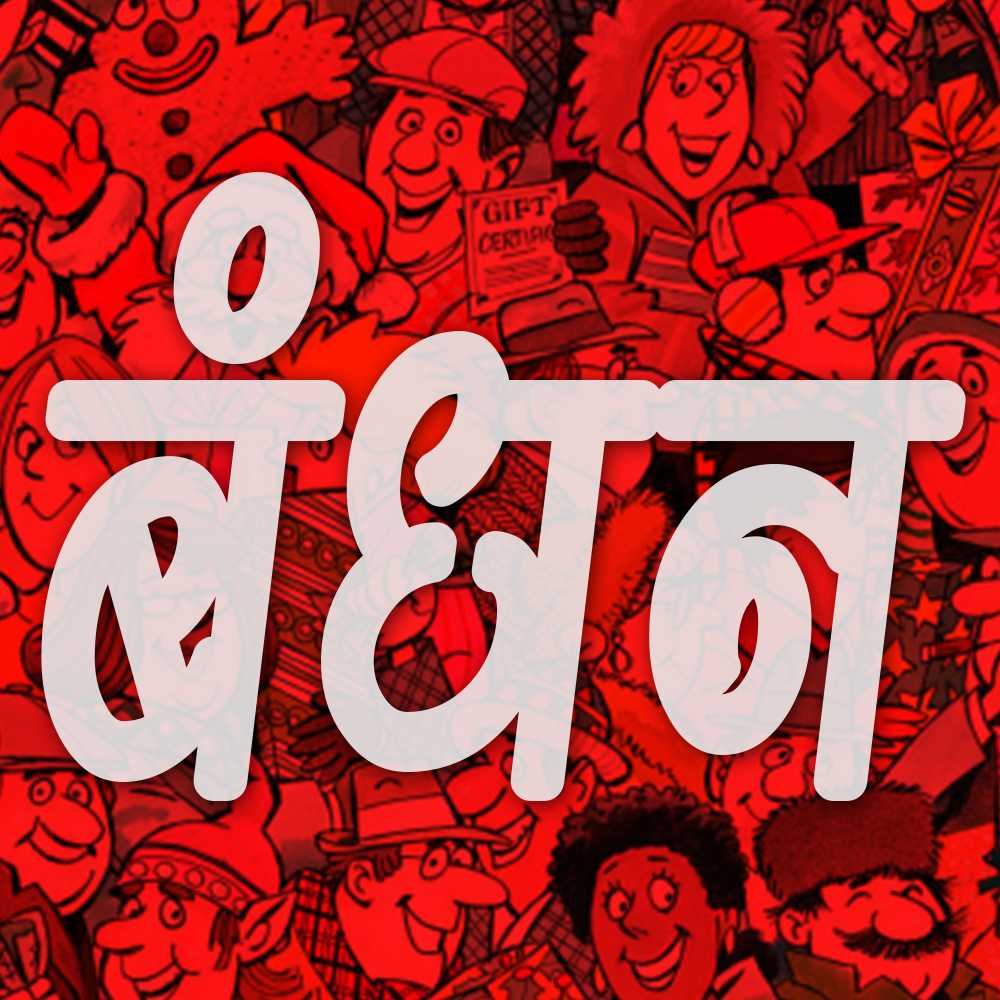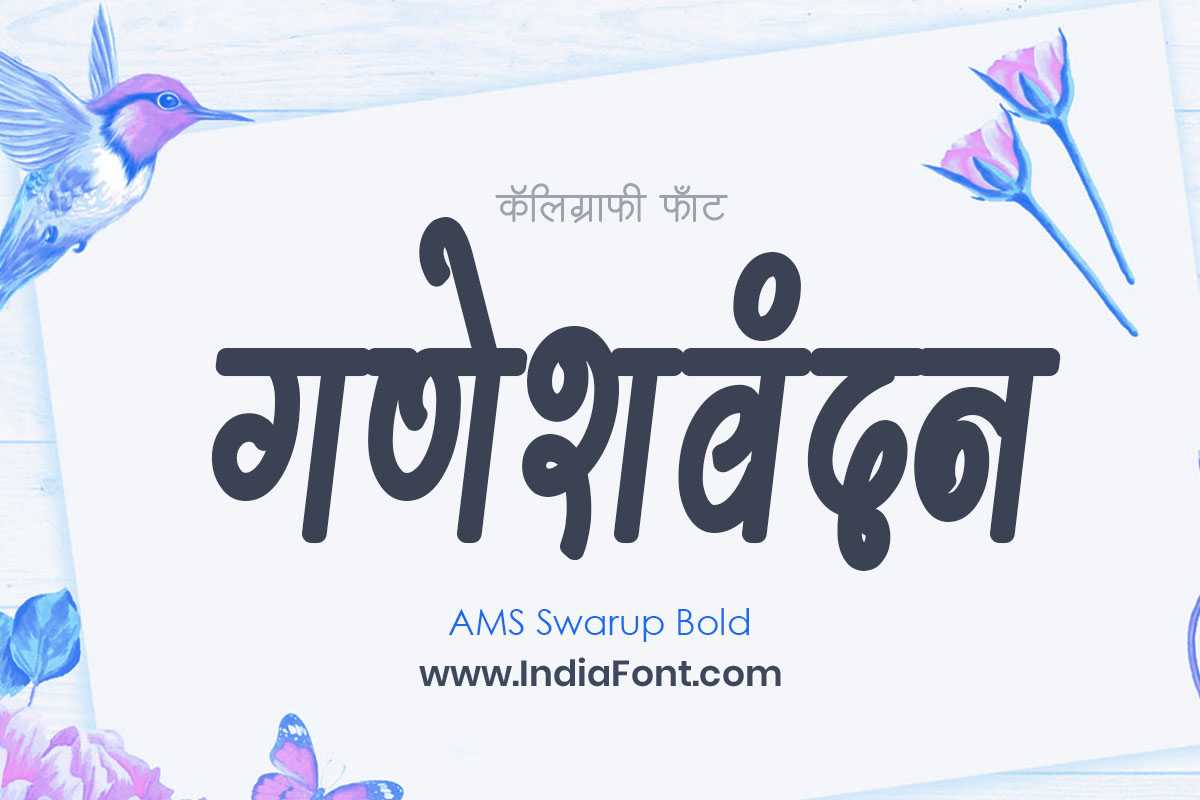
AMS Swarup Bold
Make a bold statement with AMS Swarup Bold, a publication font that commands attention and exudes confidence. This font is ideal for designers seeking stylish Hindi fonts, bold fonts suitable for publications, or fonts that offer a unique font style download. With its strong letterforms and enhanced legibility, AMS Swarup Bold ensures your content stands out.
AMS Swarup Bold Design Inspiration
Explore how AMS Swarup Bold looks in real-world applications and get inspired for your next project
AMS Swarup Bold font design inspiration and usage example
AMS Swarup Bold typography showcase and design sample
About AMS Swarup Bold Font
Make a bold statement with AMS Swarup Bold, a publication font that commands attention and exudes confidence. This font is ideal for designers seeking stylish Hindi fonts, bold fonts suitable for publications, or fonts that offer a unique font style download. With its strong letterforms and enhanced legibility, AMS Swarup Bold ensures your content stands out. This publication font combines elegance with functionality, making it perfect for various design applications.
AMS Swarup Bold is a professionally crafted publication typeface that brings clarity and style to your projects. Designed with attention to detail, it supports hindi and marathi characters flawlessly.
Whether you're working on wedding-materials, invitations, headers-titles, or other creative projects, AMS Swarup Bold delivers consistent performance across both digital and print media. This carefully designed typeface ensures readability and visual appeal in all your design work.
Why Choose AMS Swarup Bold?
AMS Swarup Bold excels in various design scenarios. Here are the most suitable applications:
About AMS Swarup Bold Typography Style
AMS Swarup Bold is a professionally crafted publication font that exemplifies modern Hindi typography design. This free font is perfect for designers seeking professional branding and logo design projects.
Available in 1 weight and supporting hindi, marathi scripts, AMS Swarup Bold offers exceptional versatility for both digital and print media. Whether you're working on wedding-materials, invitations, headers-titles, this carefully designed typeface ensures consistent quality and professional results across all your typography projects.